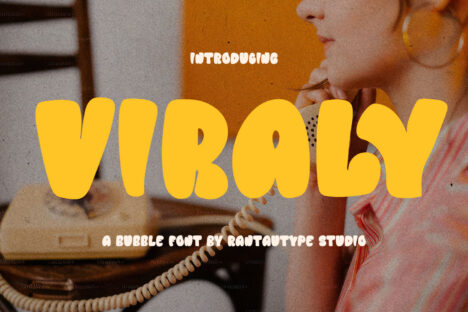
Viraly Bubble Font
Viraly is bubble font with more feature. Come with alternate, ligature and multilanguage character.
Viraly is perfectly choice for any creative endeavor, such as logos, title, watermark on photography, cover, branding, display and magazine, wedding event, corporate brand, quotes, album cover, business card, business project and many other design project with playful taste.